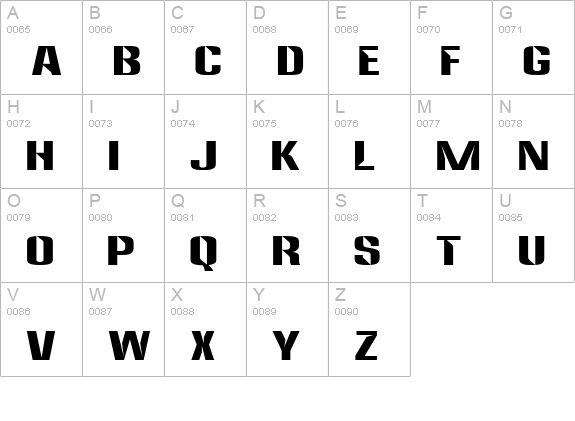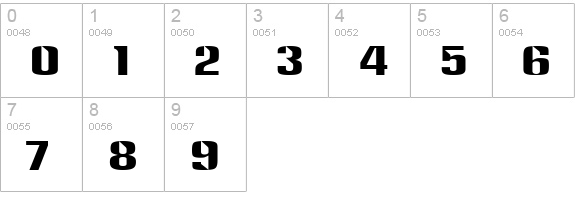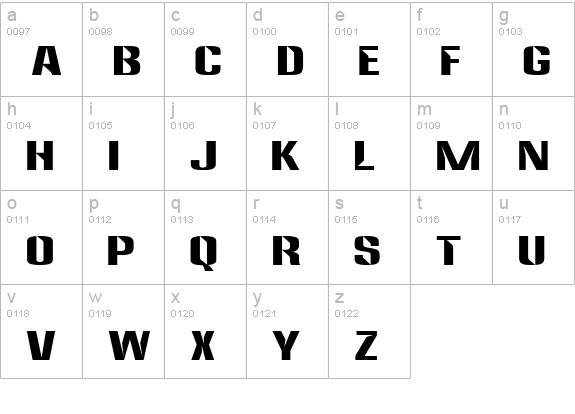
The Anklepants font is a whimsical and playful typeface that is perfect for adding a touch of fun to your designs. With its unique and quirky characters, Anklepants is sure to stand out and make a statement. This font is freely available to download at FontsMarket.com, making it easy to add a touch of personality to your projects without breaking the bank. Whether you're designing a poster, logo, or any other creative project, Anklepants is a versatile and eye-catching choice that is sure to impress. Let your creativity shine with the Anklepants font today!